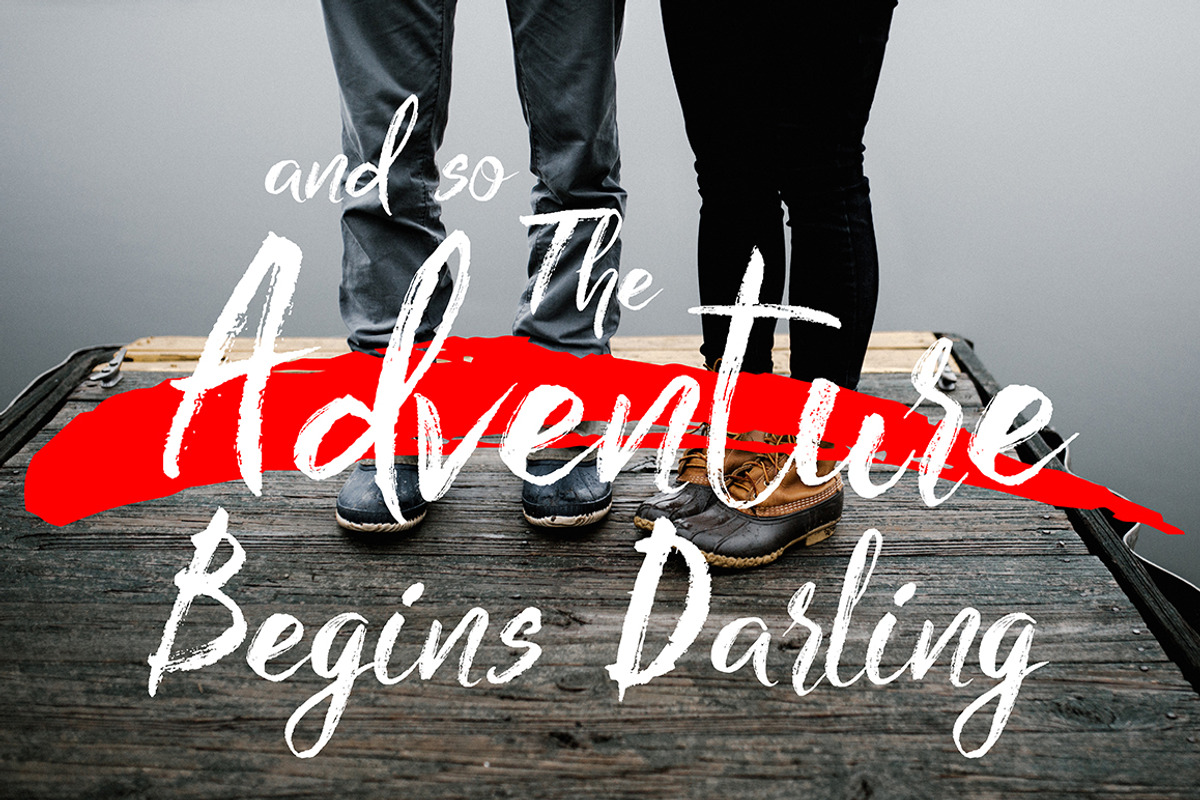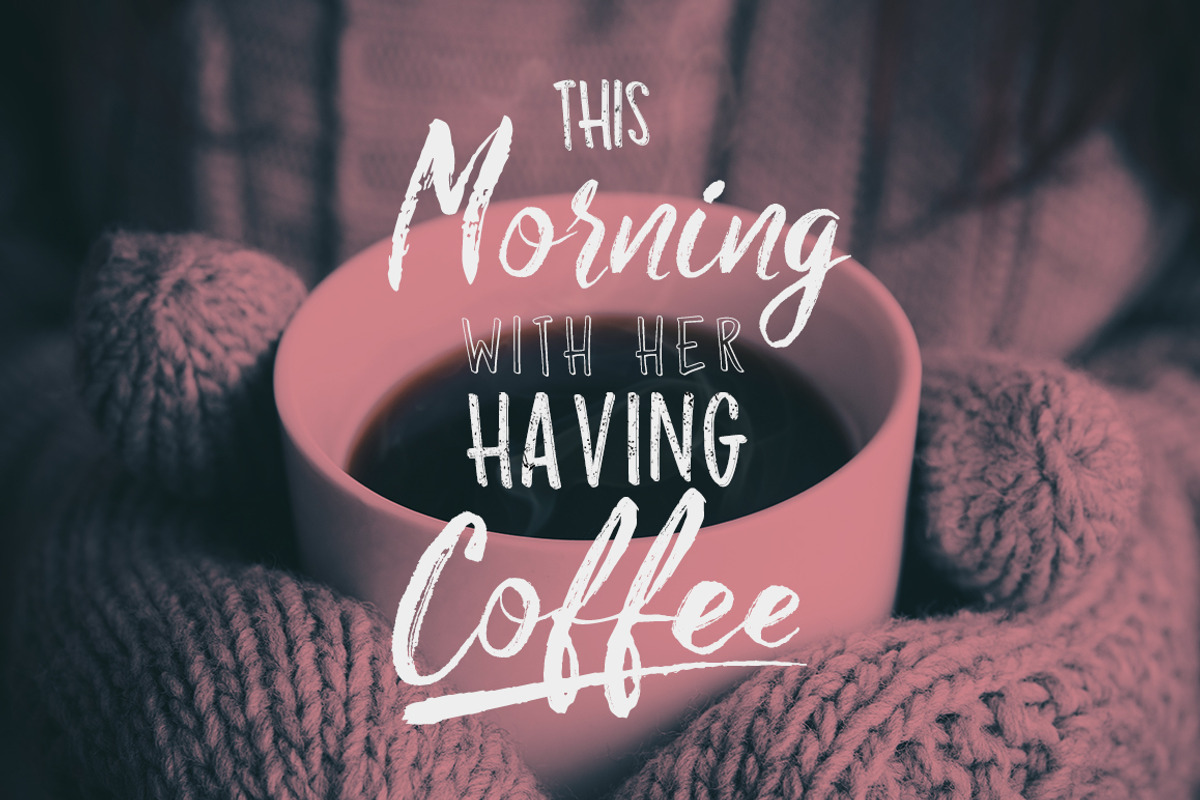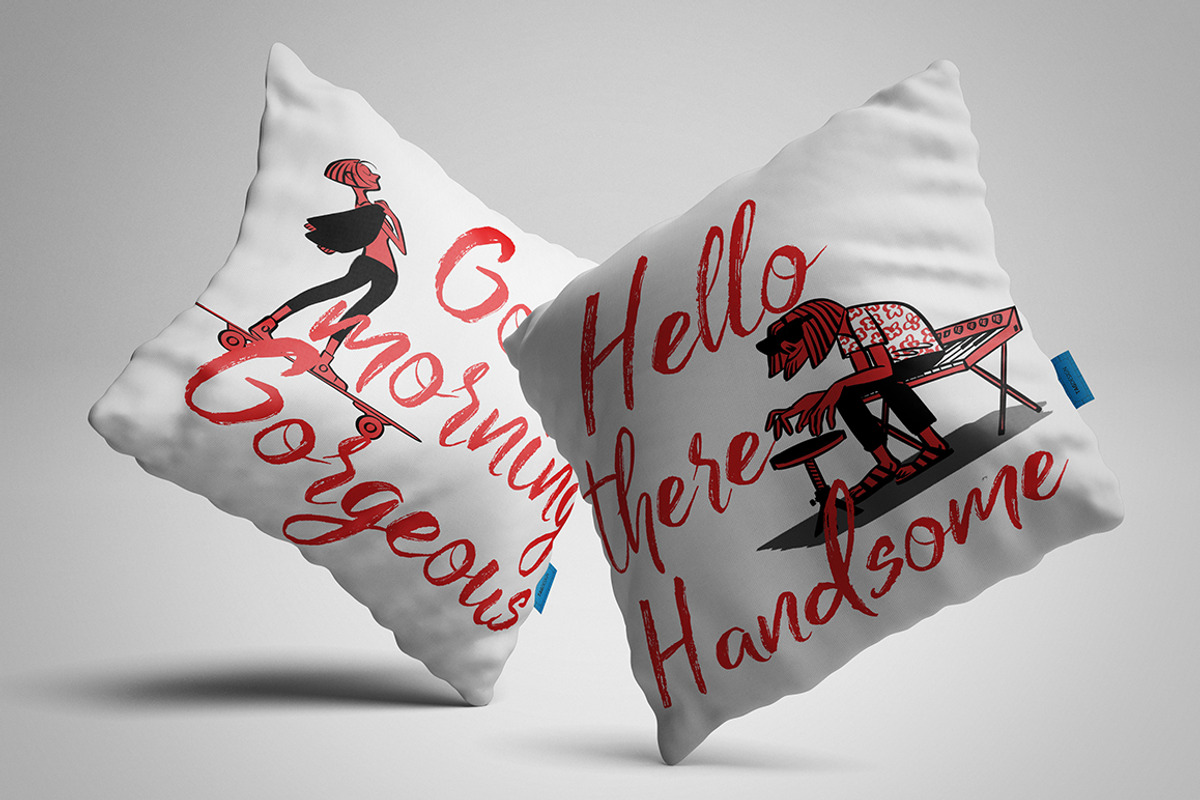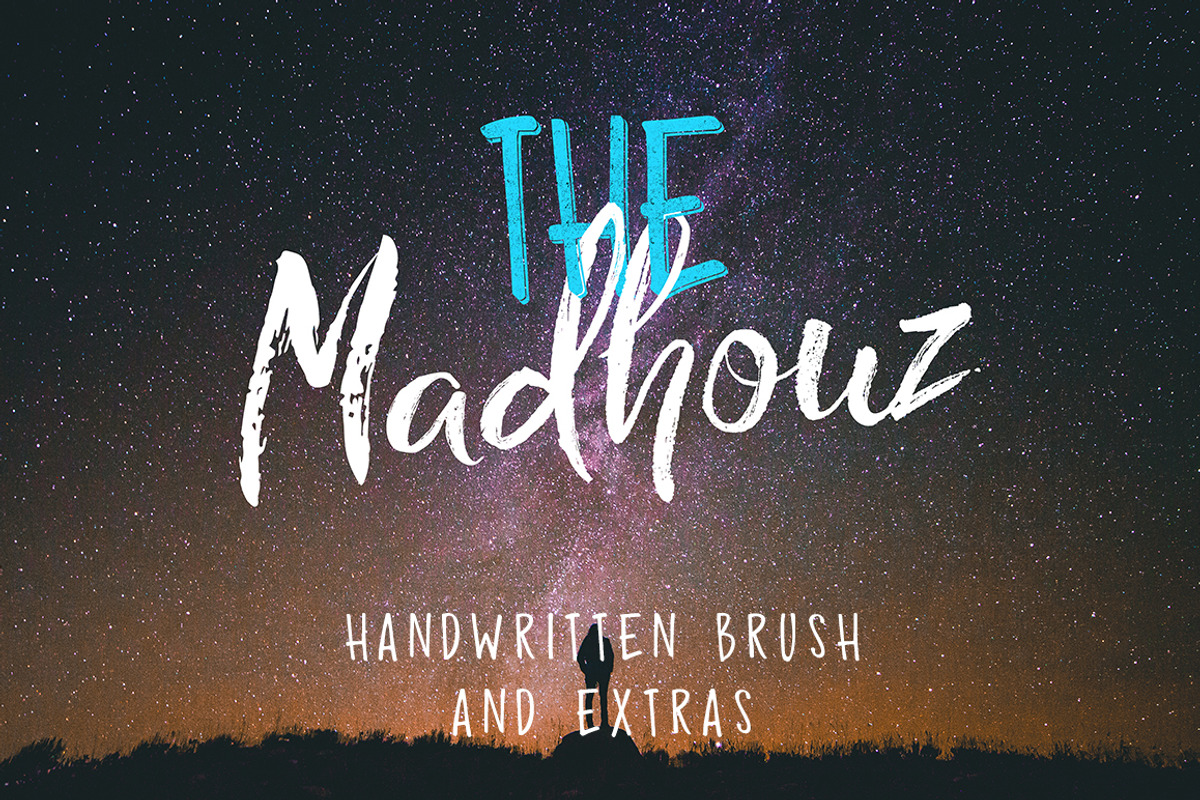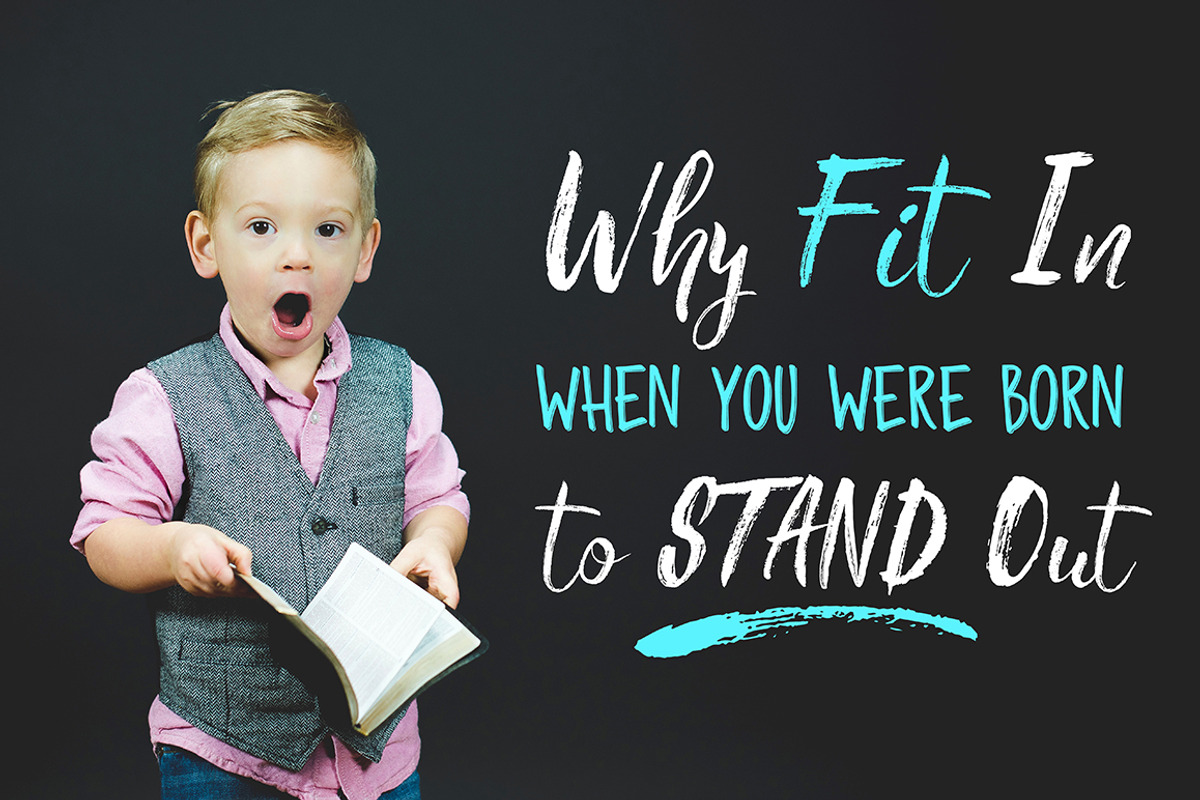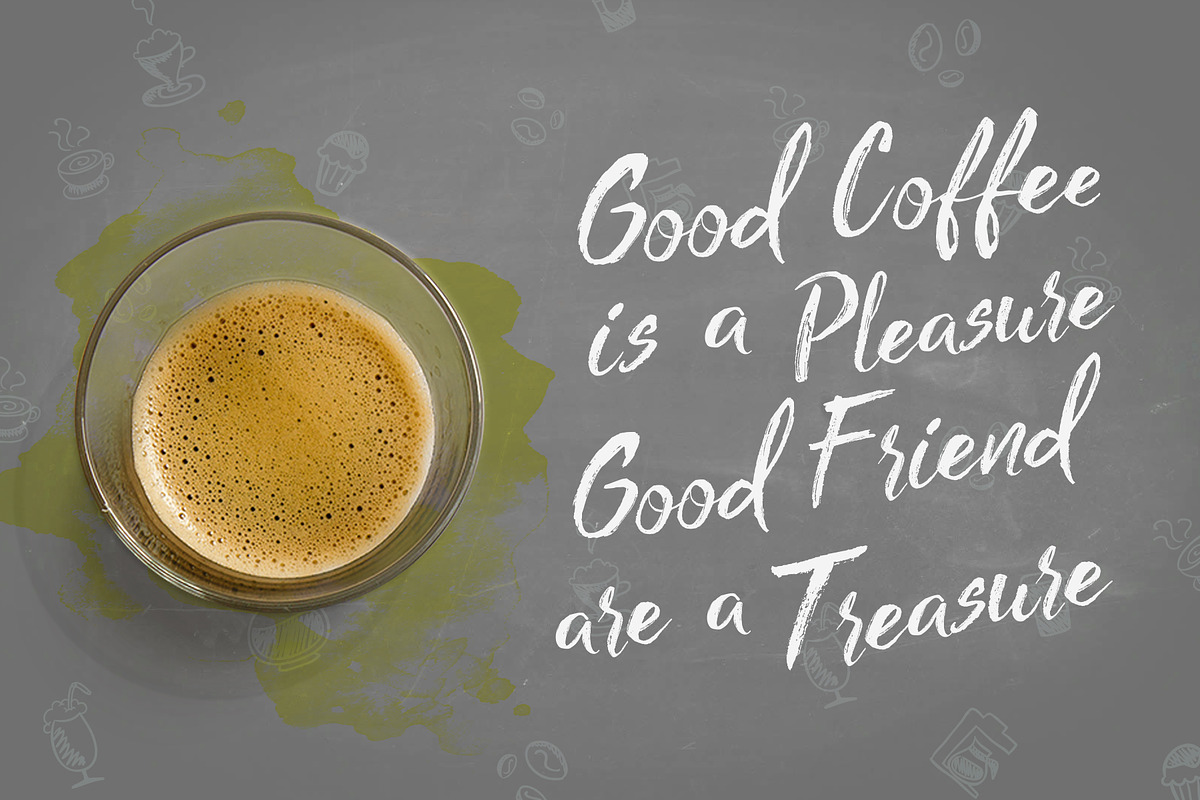
Madhouz
Introducing Madhouz, a typeface created stylized handwriting is clearly visible charms, made more elegant impression posts and more passionate. It comes with different styles that will make a wonderful impression
Madhouz Script is handwritten stylish copperplate calligraphy fonts, combines from copperplate to contemporary typeface with a dancing baseline, classic and elegant touch. Can be used for various purposes.such as headings, signature, logos, wedding invitation, t-shirt, letterhead, signage, lable, news, posters, badges etc.